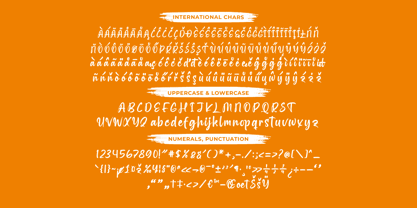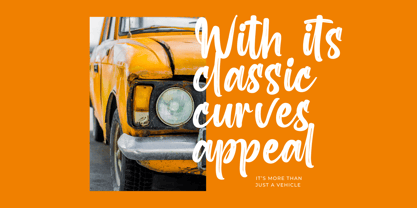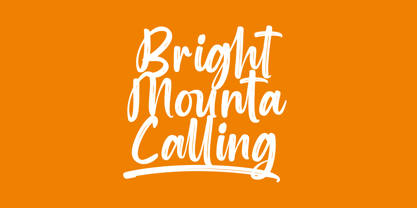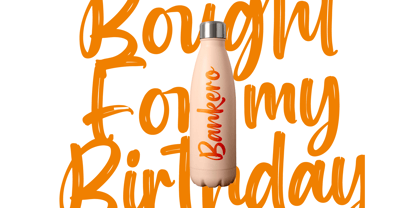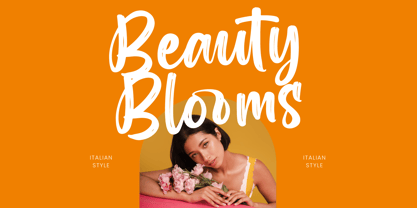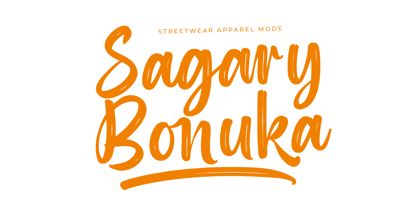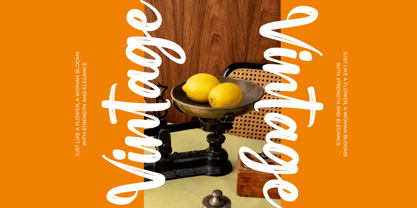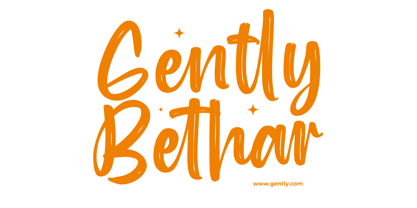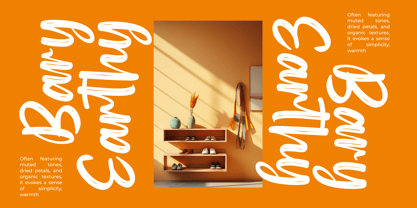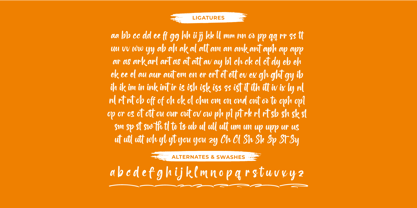
Interest Explore
by Letterena Studios
The Interest Explore Font Family was designed by Heru Utama Putra and published by Letterena Studios. Interest Explore contains 2 styles and family package options. More about this family
Interest Explore - Modern Brush Font , from Letterena, is a Luxury Script font, suitable for any projects such as: logos, branding projects, homeware designs, product packaging, mugs, quotes, posters, shopping bags, t-shirts, book covers, name card, invitation cards, greeting cards, label, photography, watermark, special events, and all your other luxury and beautiful projects that need a Luxury Script taste.